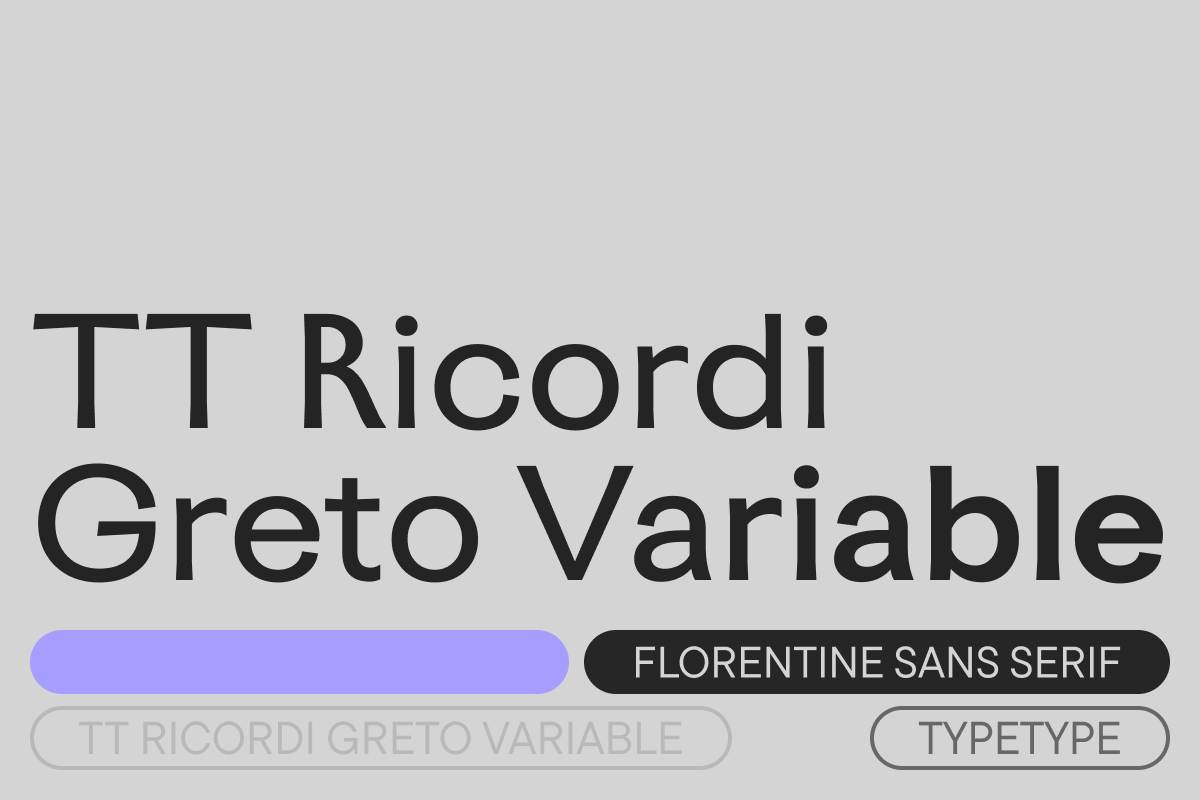
TT Ricordi Greto VF
Inspired by a 1423 floor inscription in Florence’s Basilica di Santa Croce, TT Ricordi Greto strikes a perfect balance between trendy modern aesthetics and authentic historical details. The result is a typeface where Renaissance character meets contemporary design sensibilities. TT Ricordi Greto retains subtle hints of serifs that nod to its historical origins while featuring closed apertures, dynamic proportions, and fluid terminals with distinctive curling and flaring stroke ends.